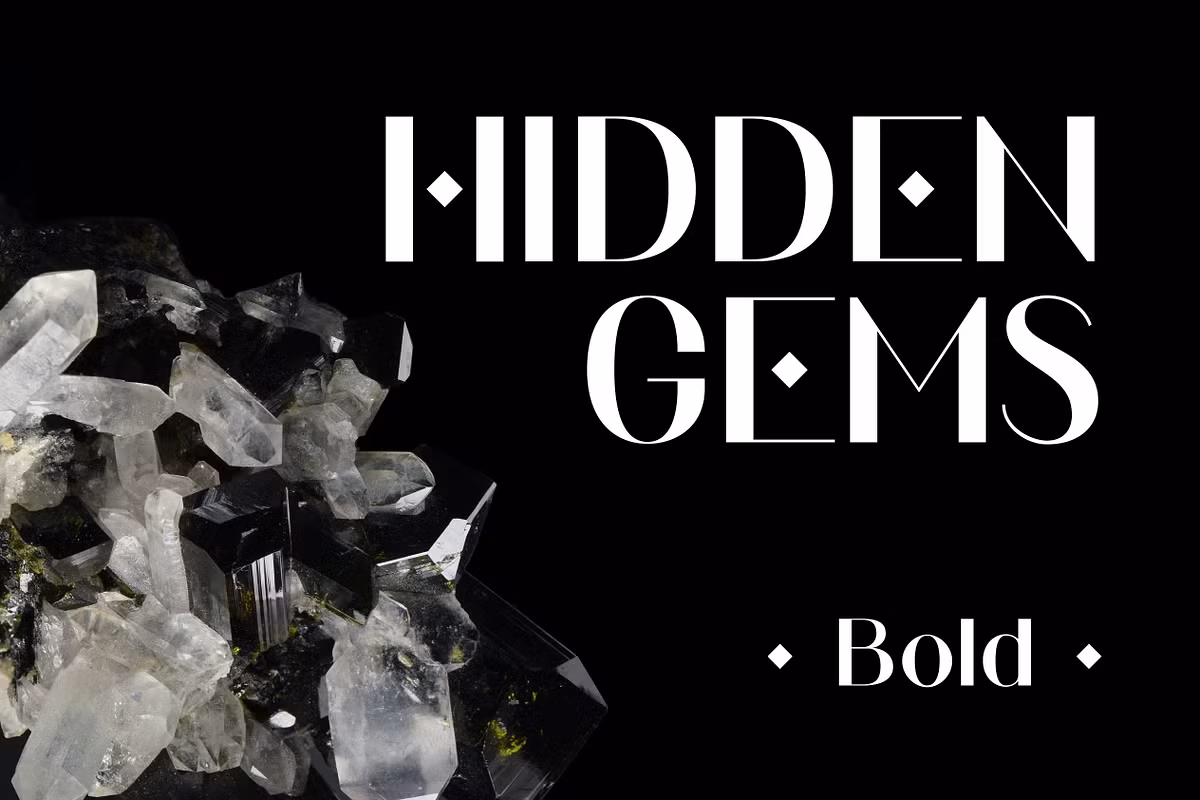
Hidden Gems - Bold Free Download
Hidden Gems Font - Bold Free Download
Hidden Gems Font - Bold Free Download is a strong and striking sans-serif typeface with clean lines and modern appeal. Its bold and assertive letterforms make it perfect for headlines, logos, branding, posters, and any project that requires a commanding presence. This font stands out with its geometric simplicity, making it a versatile choice for a wide range of design needs.
Using the Hidden Gems Font - Bold Free Download adds strength and clarity to your designs. Whether you're creating a powerful logo, a promotional banner, or a sleek website header, this font brings boldness and readability to your typography.